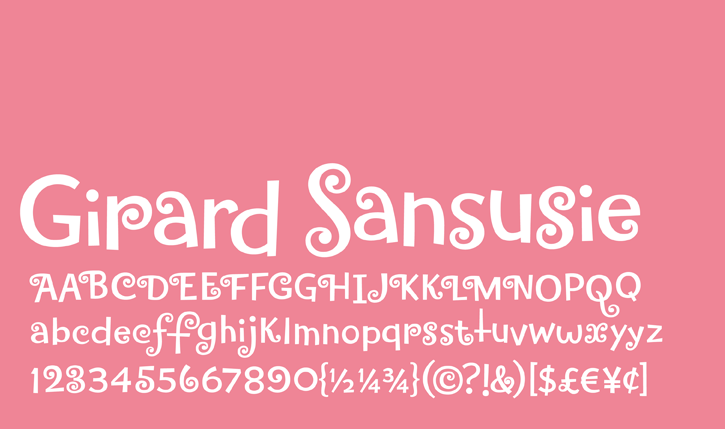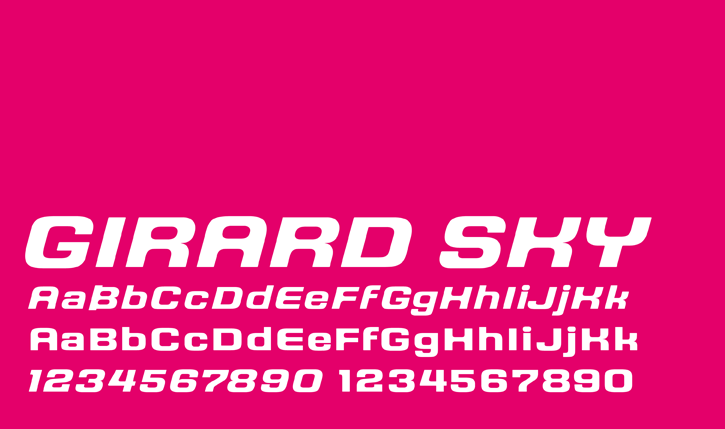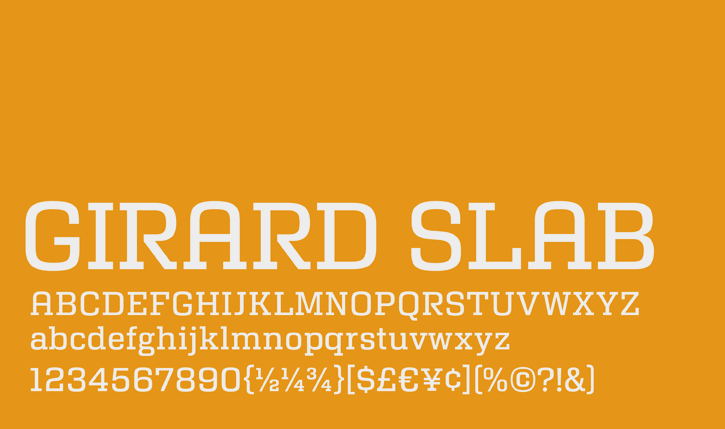
Girard Font Collection
Alexander Girard was a master at utilizing lettering and type as practical, illustrative and readable elements. The result of a research odyssey that spanned thousands of miles and three years, these four fonts will infuse any design project with Girard’s signature folk sensibilities while working seamlessly in any contemporary publishing environment. Shop Girard!